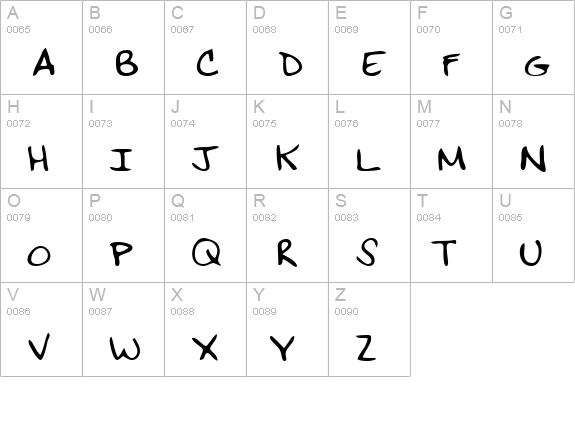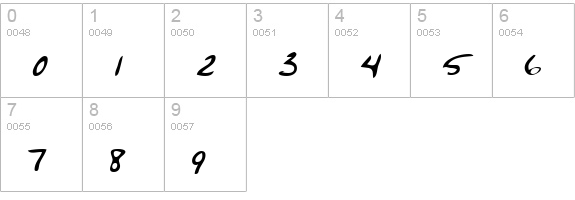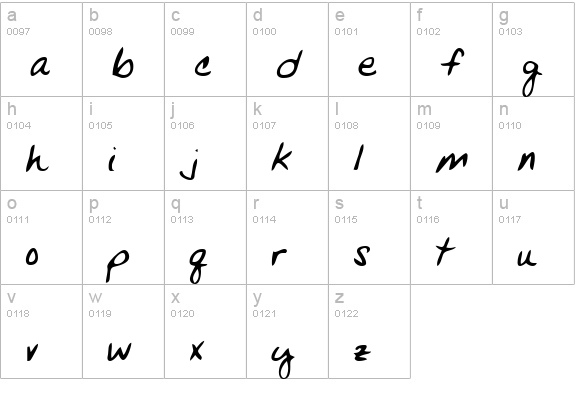
VansHand Regular Font Details
VansHand Regular is the standard, neutral variant in the VansHand typeface family \xE2\x80\x94 well suited to general body text, paragraphs, and standard typographic work.
VansHand Regular font is a versatile and charismatic typeface that exudes a sense of casual coolness. With its hand-drawn style and playful personality, this font is perfect for a wide range of design projects, from branding and packaging to social media graphics and logos. The letterforms of VansHand Regular are carefully crafted, with slightly uneven strokes and a hand-drawn charm that adds a touch of authenticity and uniqueness to any design. The slightly slanted and condensed nature of the characters gives this font a modern and dynamic feel, making it suitable for contemporary designs. One of the best things about VansHand Regular font is that it is freely available to download at FontsMarket.com. This means that you can access this amazing typeface without any cost, making it an excellent option for designers on a budget or those who simply appreciate the beauty of free resources. Whether you're looking to create a laid-back and approachable brand identity, or adding a personal touch to your designs, VansHand Regular font will surely leave a lasting impression. Its versatility and free availability make it a must-have in any designer's toolkit. So why wait? Go ahead and download VansHand Regular font today from FontsMarket.com and bring a touch of hand-drawn charm to your next creative project.